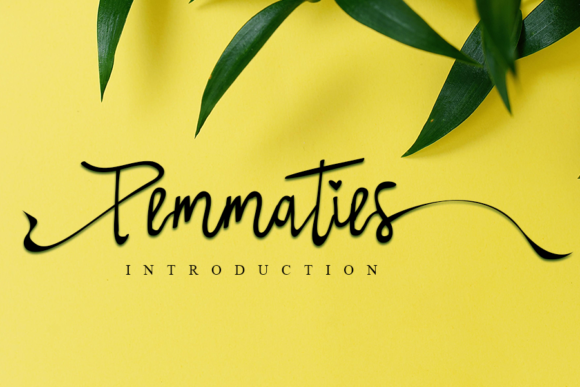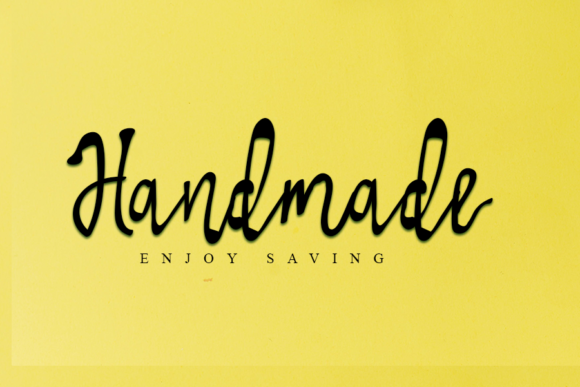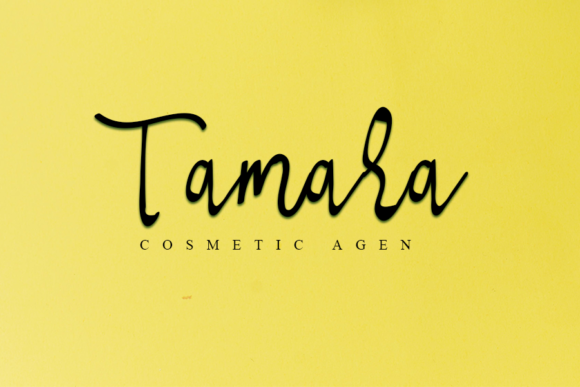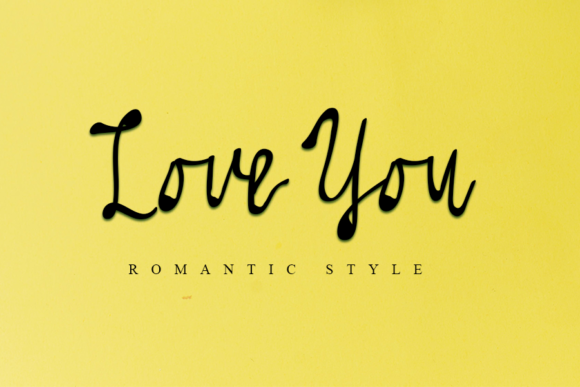
Pemmaties Font
About Pemmaties Font
Telletubies is a cute and relaxed handwritten font. Fall in love with its incredibly versatile style and use it to create gorgeous wedding invitations, beautiful stationary art, eye-catching social media posts, and much more!